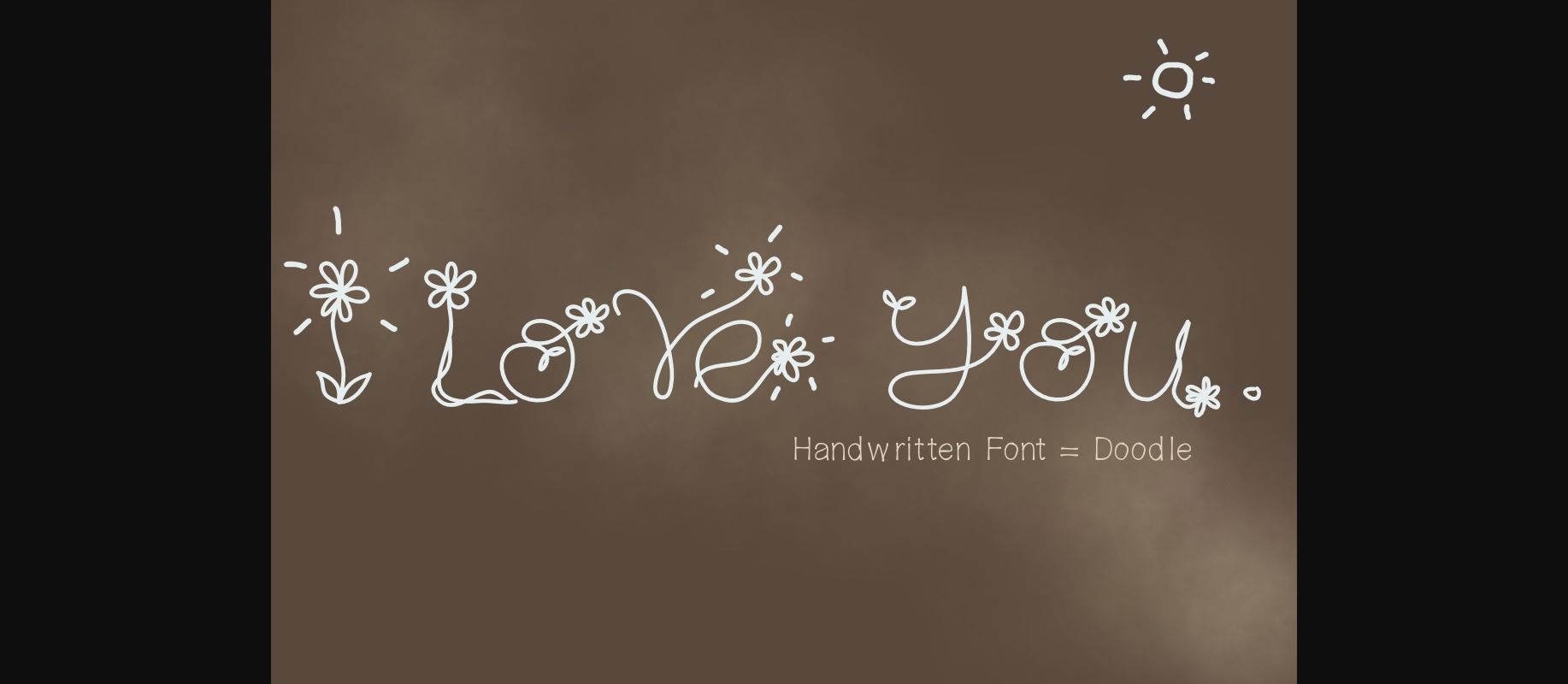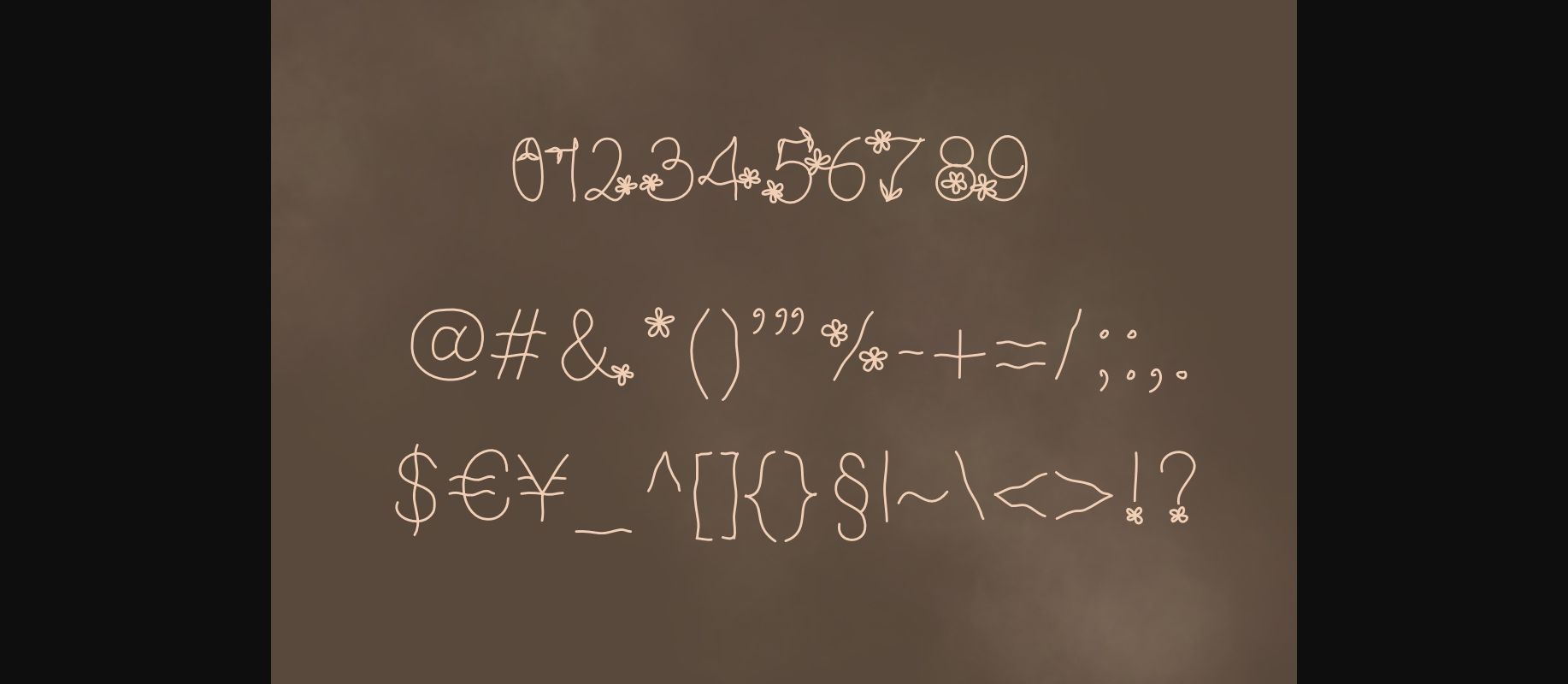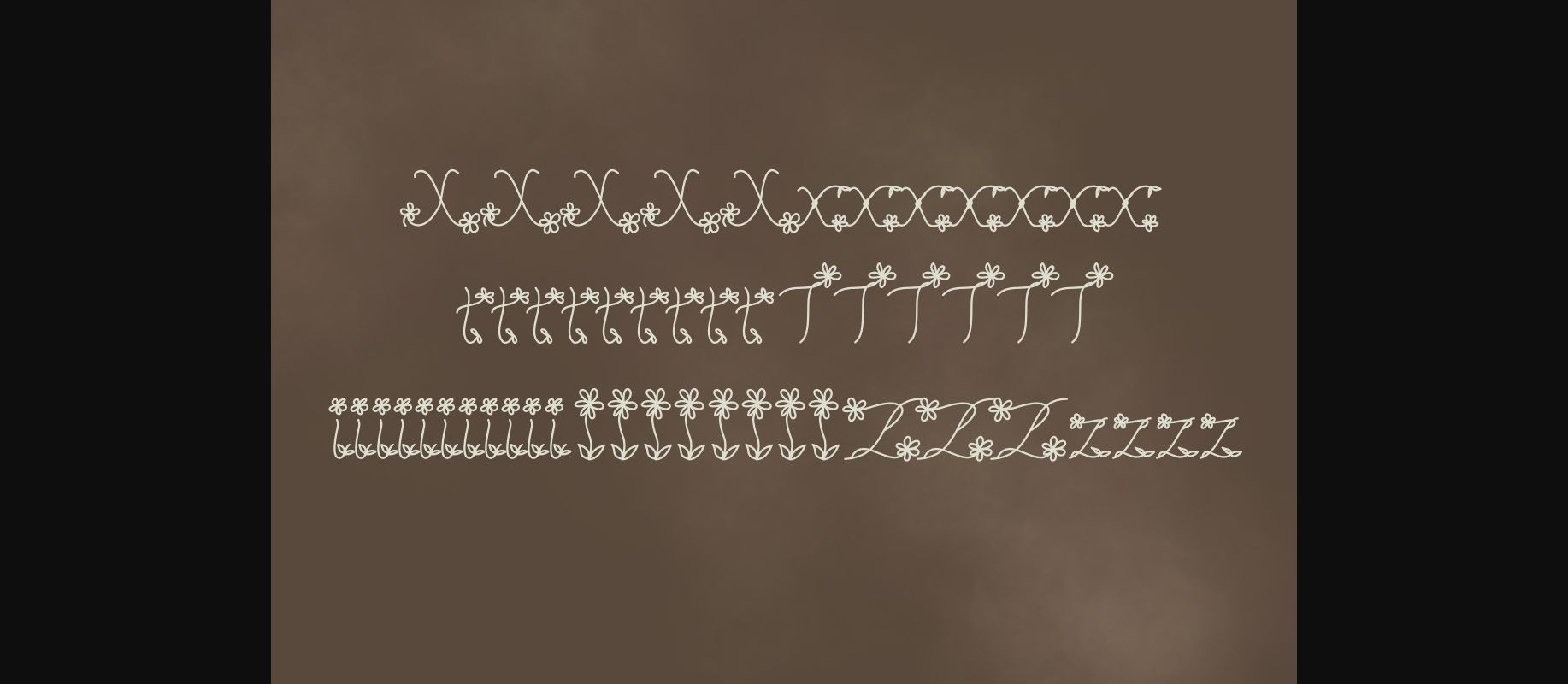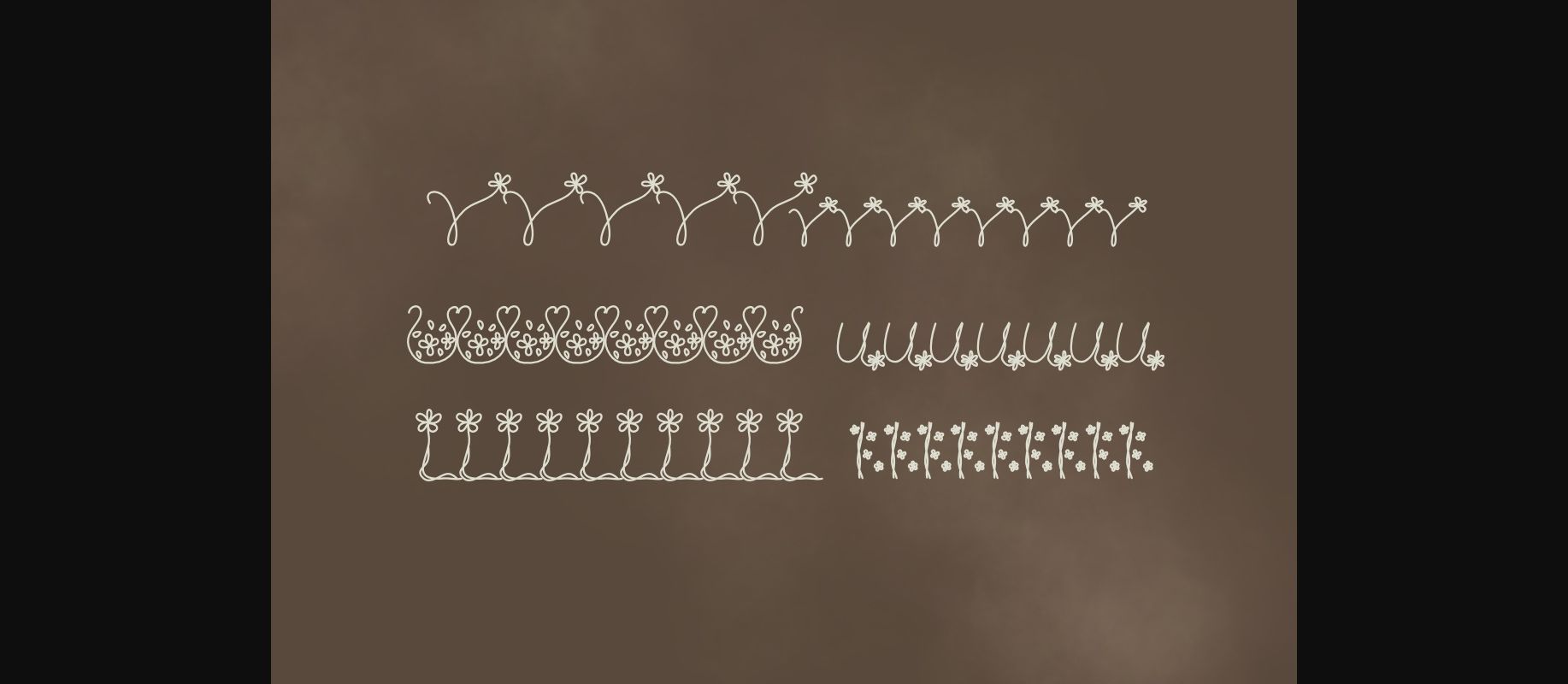
I Love You Font
About I Love You Font
I love you is a romantic and cute decorative font that’s perfect for relaxed and playful projects! Add it to thank you notes, birthday cards, apparel designs, girly designs, and more!